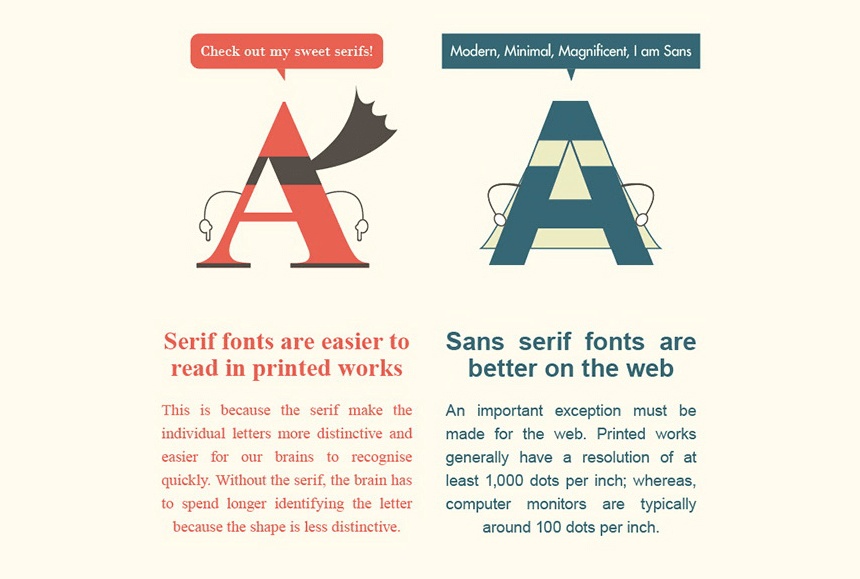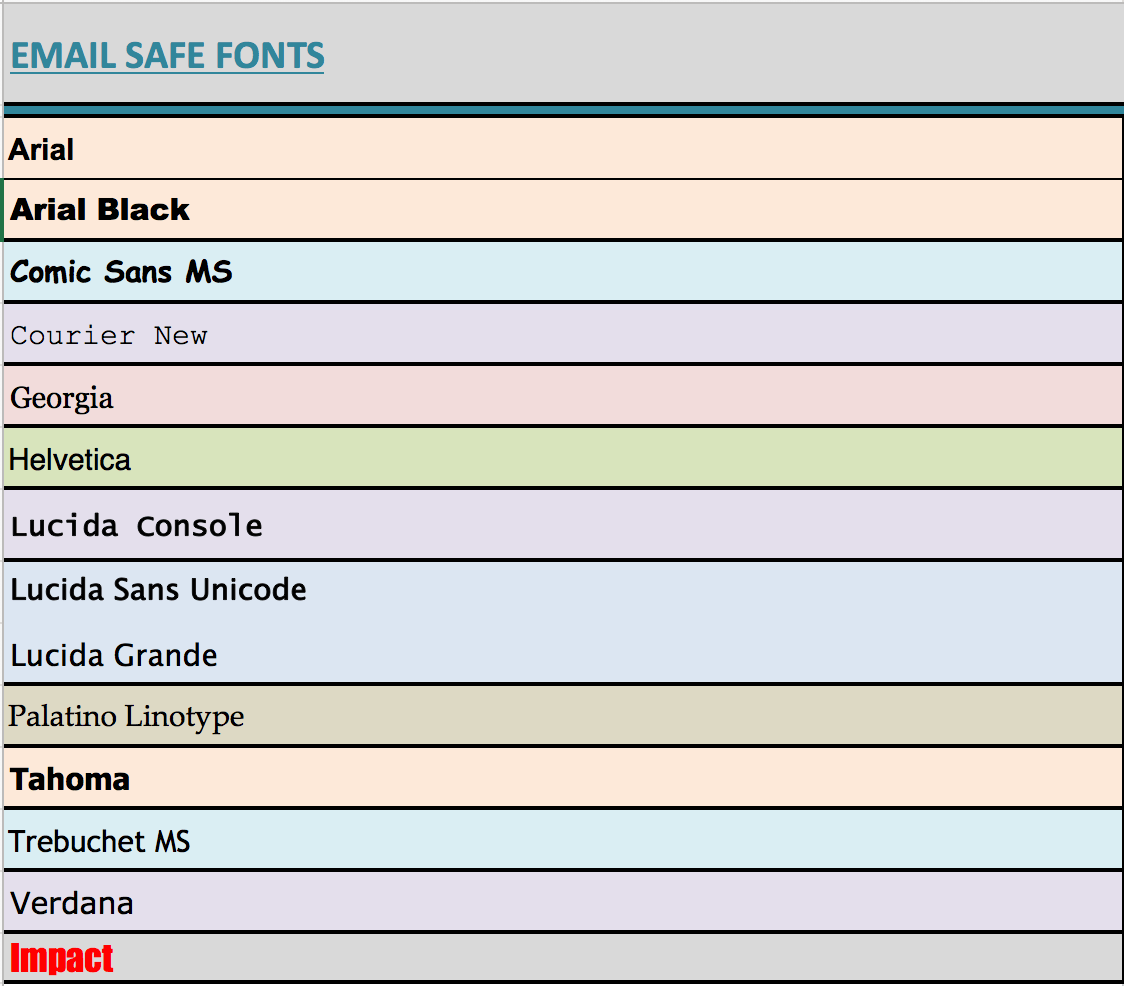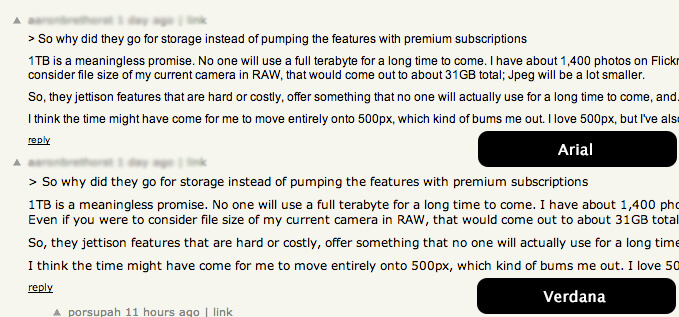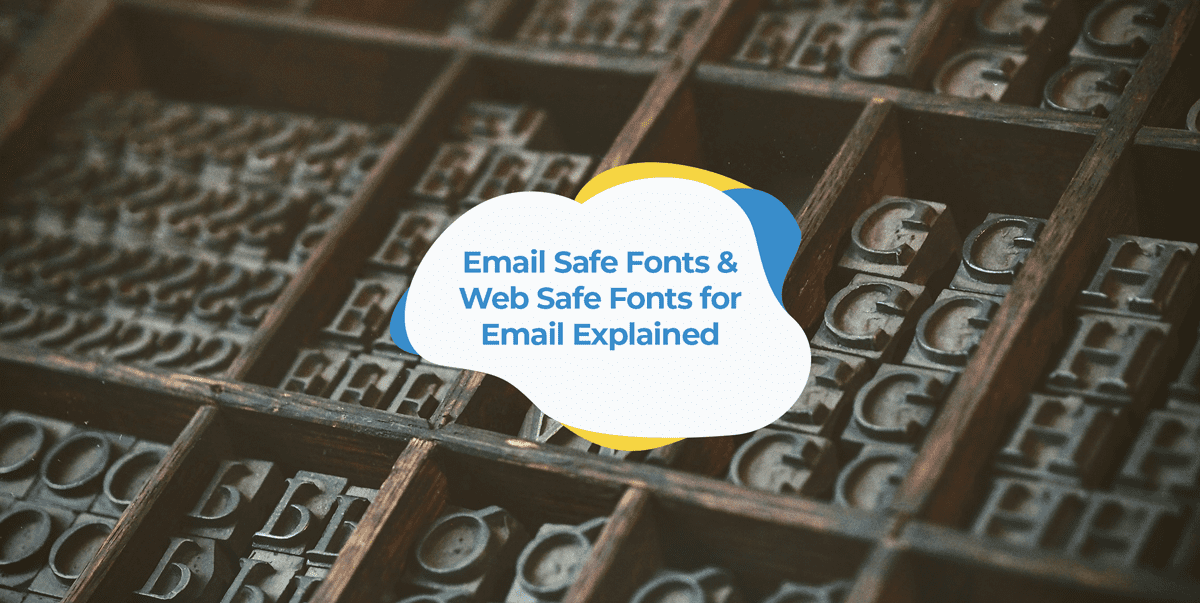
Email Web Safe Fonts. Find the best font for email in the bee email editor. If you include these in your font stacks, most people will see the page correctly.
If you use too many fonts, your email seems very complicated in the best case and annoying in the worst one. They’re the default fonts that are found on different computers, devices, and operating systems. Due to the different interests and priorities of the big players in the.
If You Use Too Many Fonts, Your Email Seems Very Complicated In The Best Case And Annoying In The Worst One.
Best web safe fonts for html and css. Serif fonts are easier to read in physical, printed formats, as the serifs lead the viewer’s eyes from character to character. Serif fonts contain serifs, small decorative strokes that protrude from the main body of the letter.
But Just Because A Font Is Web Safe Doesn’t Mean It Is 100% Safe To Use In Email Marketing.
Sans serif web safe fonts. If you include these in your font stacks, most people will see the page correctly. Ever wondered why a font doesn’t render in your email campaign?
Web Safe Fonts Have A Higher Likelihood Of Being Supported In Email Clients.
Sans serif web safe fonts: If you want to use one of these basic fonts in your email design, then your choice is. Android devices (native app) ios devices.
The Following Fonts Are The Best Web Safe Fonts For Html And Css:
All the typefaces mentioned above have great readability. What are the different types of web fonts? Email apps generally give you a list of basic fonts to choose from, such as times new roman, century gothic, arial, ect.
All the fonts on our list are serif and sans serif fonts since they are easy to read and have a positive psychological effect on readers. Font choice can either be easy or very difficult when it comes to email marketing. Choose only a font or two for one email.